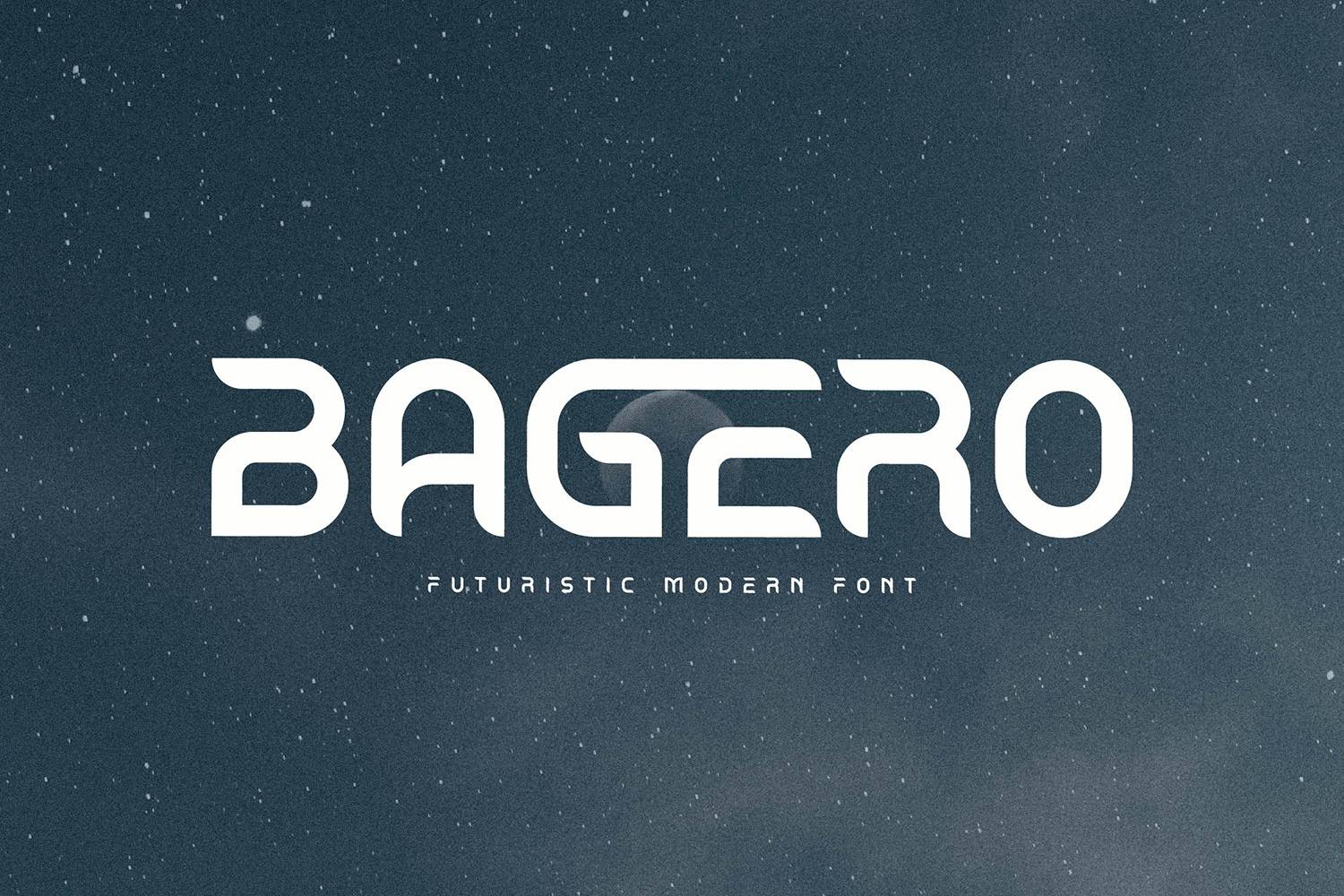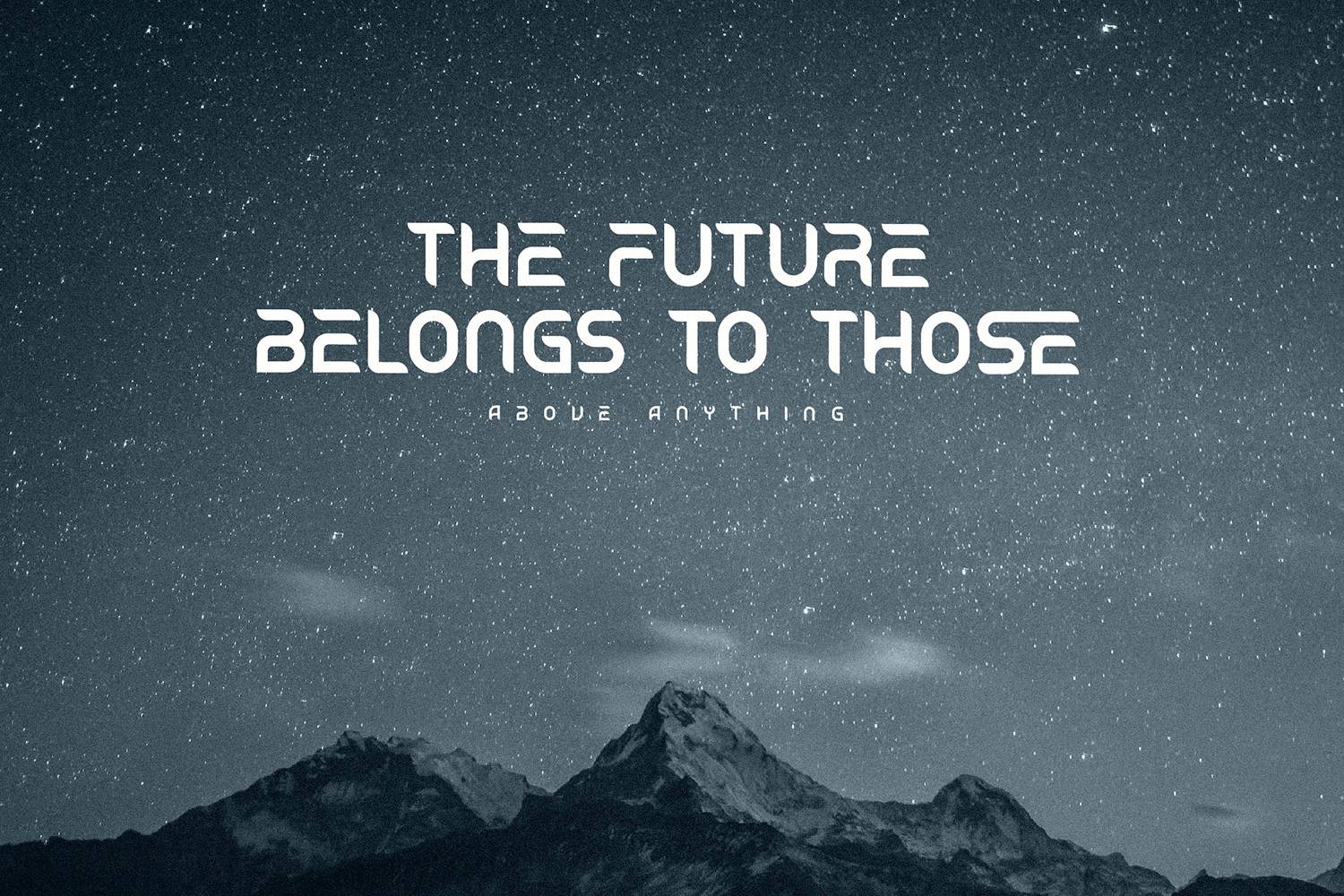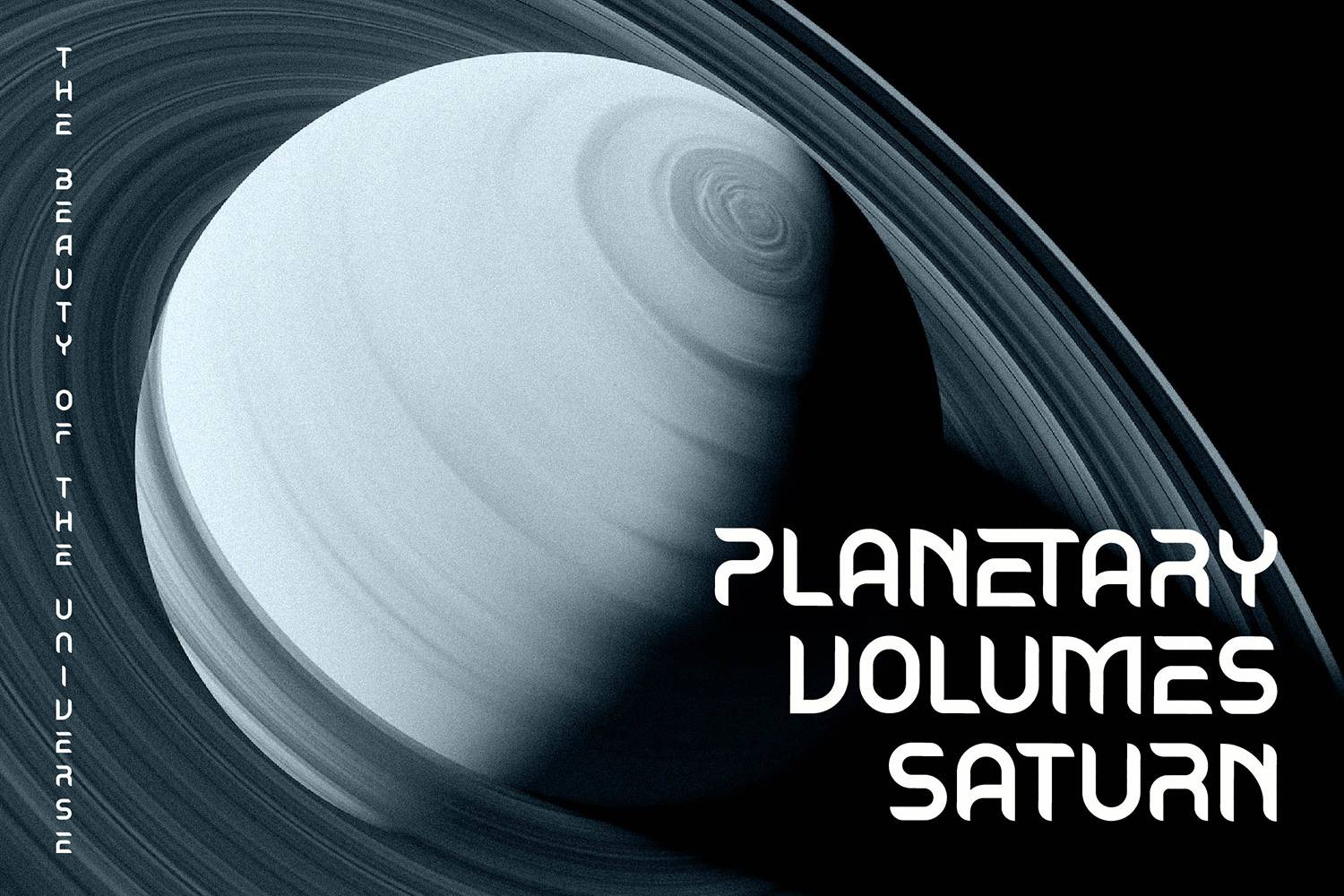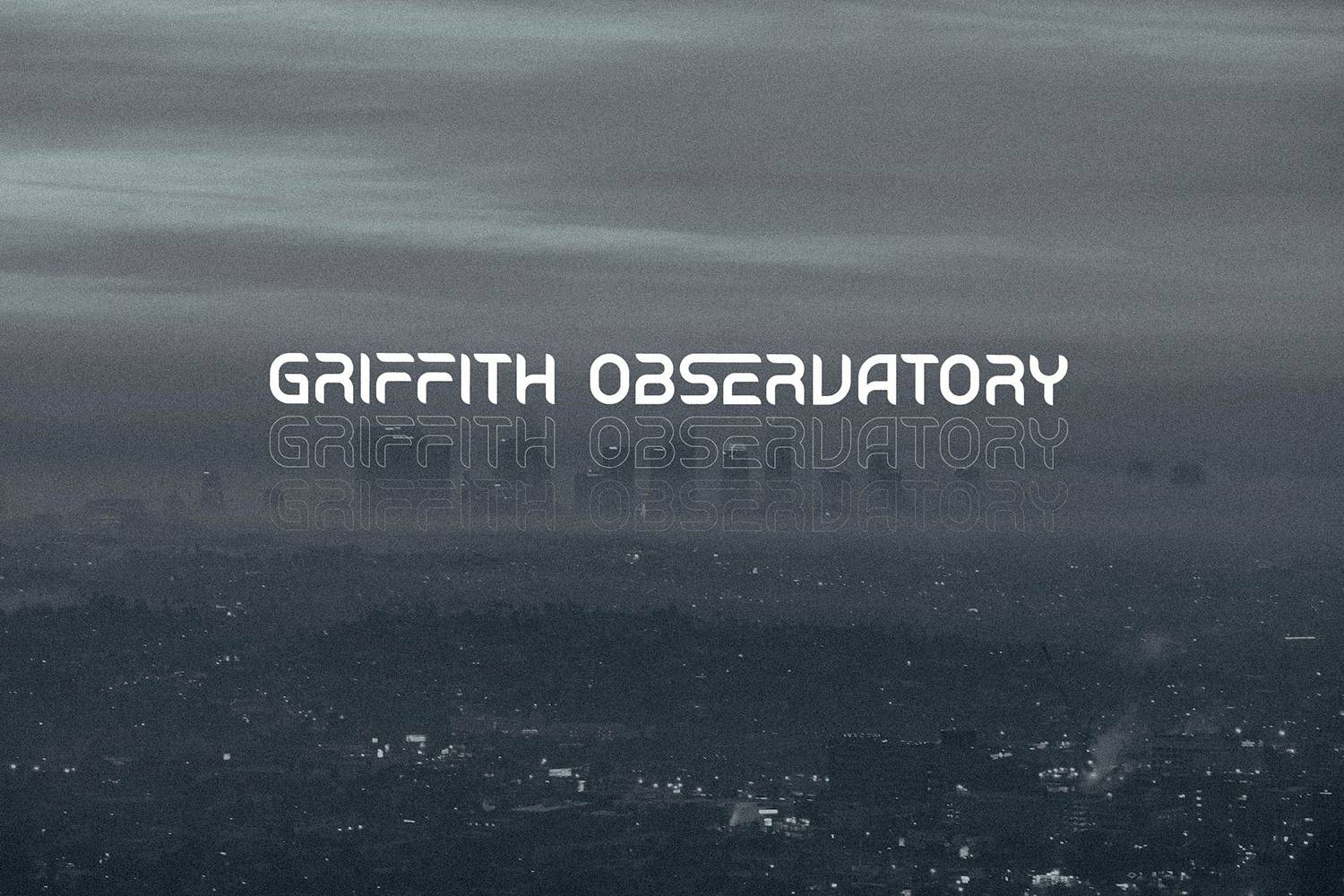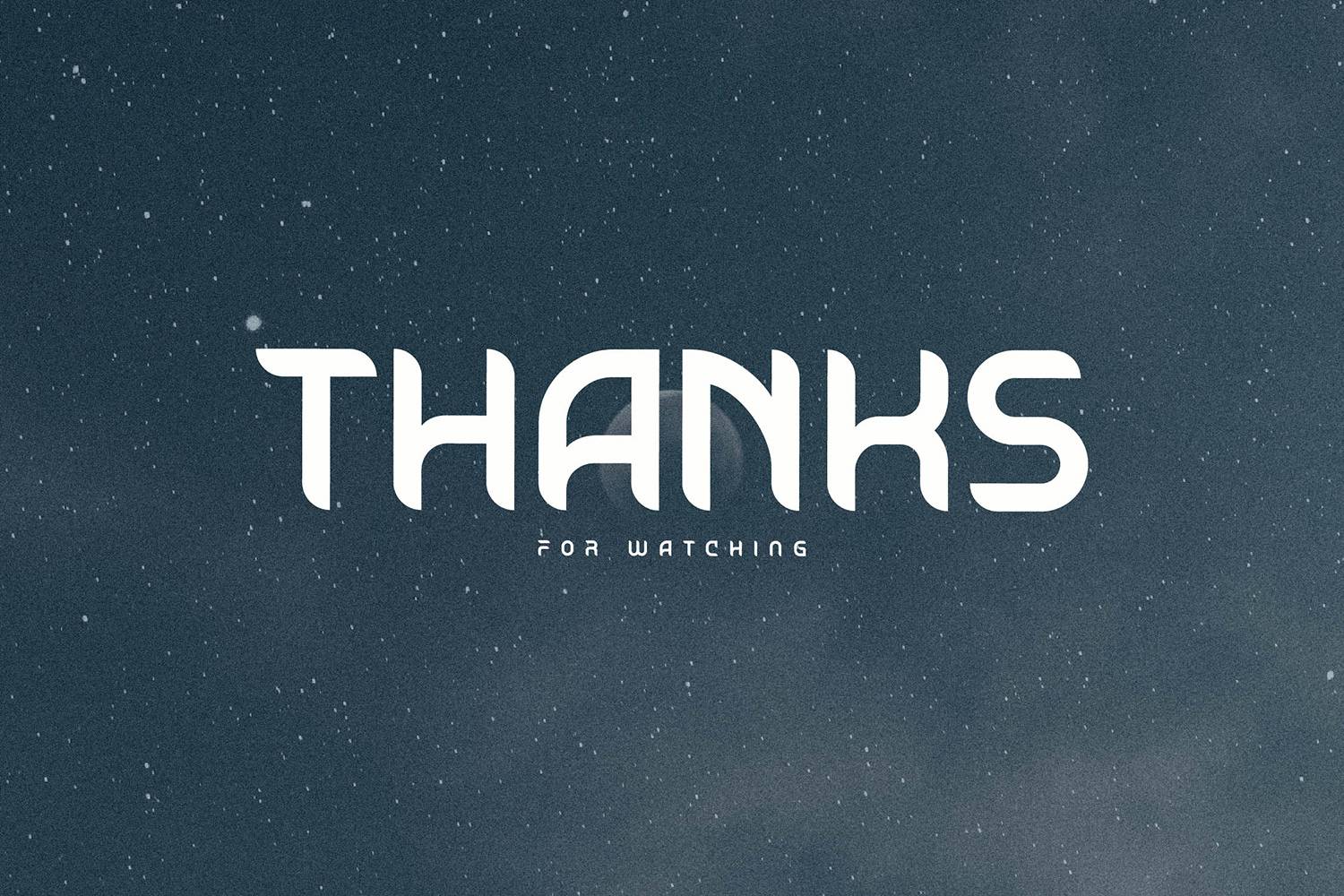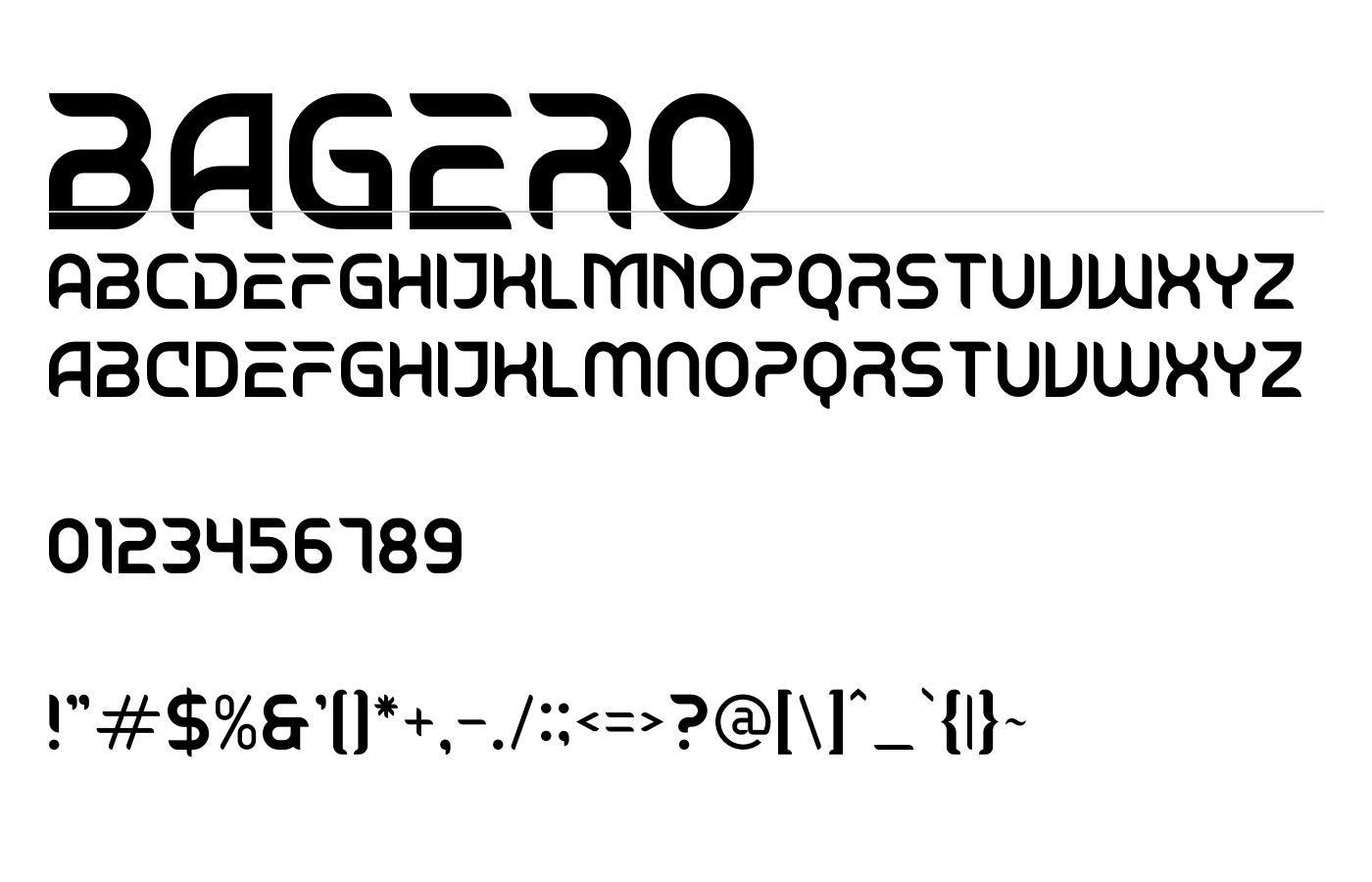
Bagero is a modern, geometric sans serif font with a futuristic and tech-inspired feel. Its bold, slightly condensed letterforms feature smooth curves and sharp edges, creating a unique blend of softness and structure ideal for eye-catching headlines, branding, and digital interfaces. This font works well in projects seeking a sleek, contemporary look with a strong visual impact.
Bagero Font
About Bagero Font